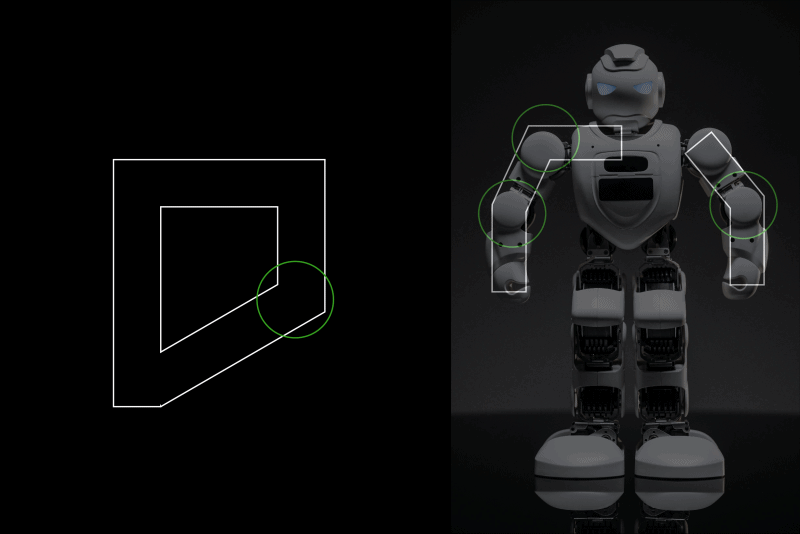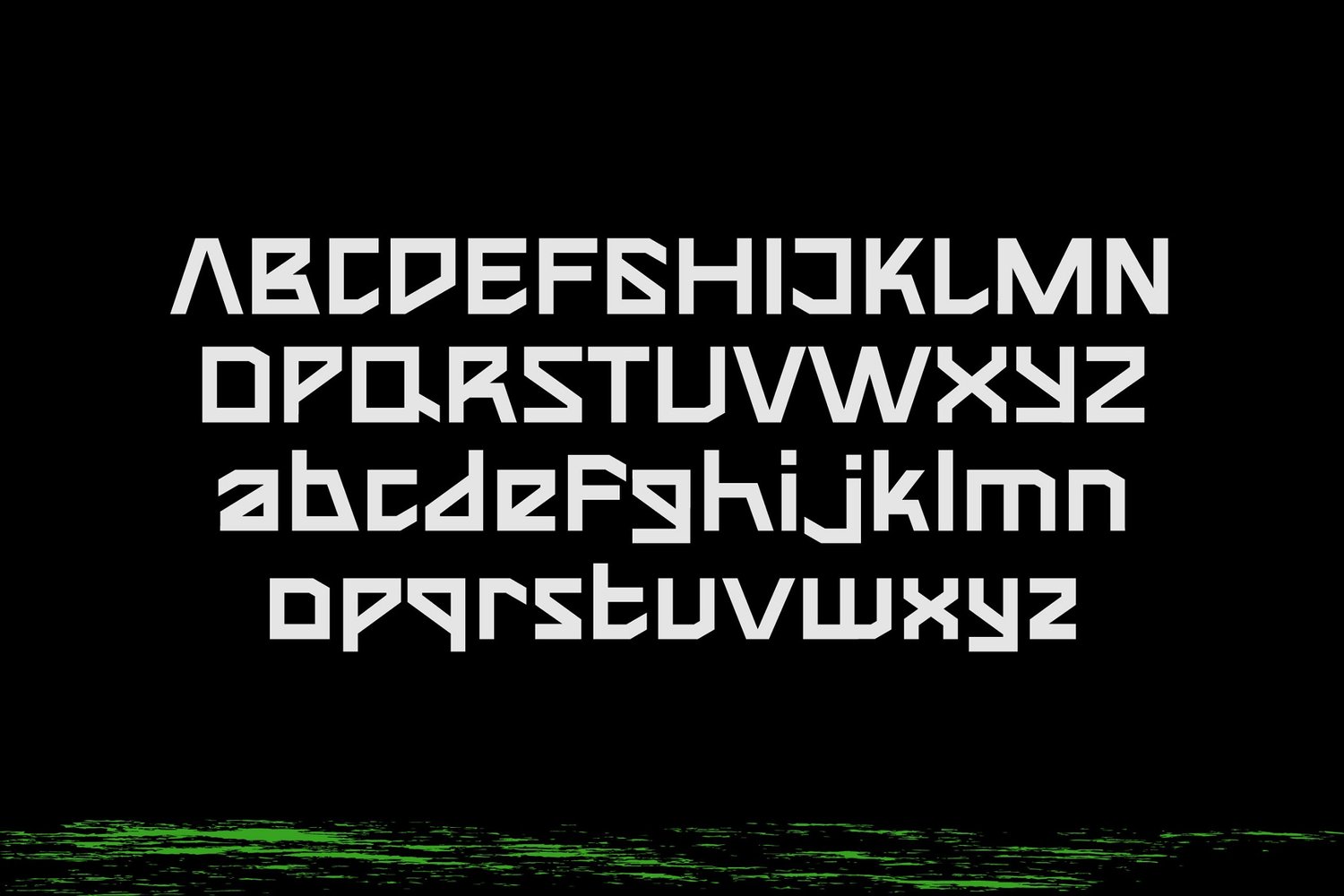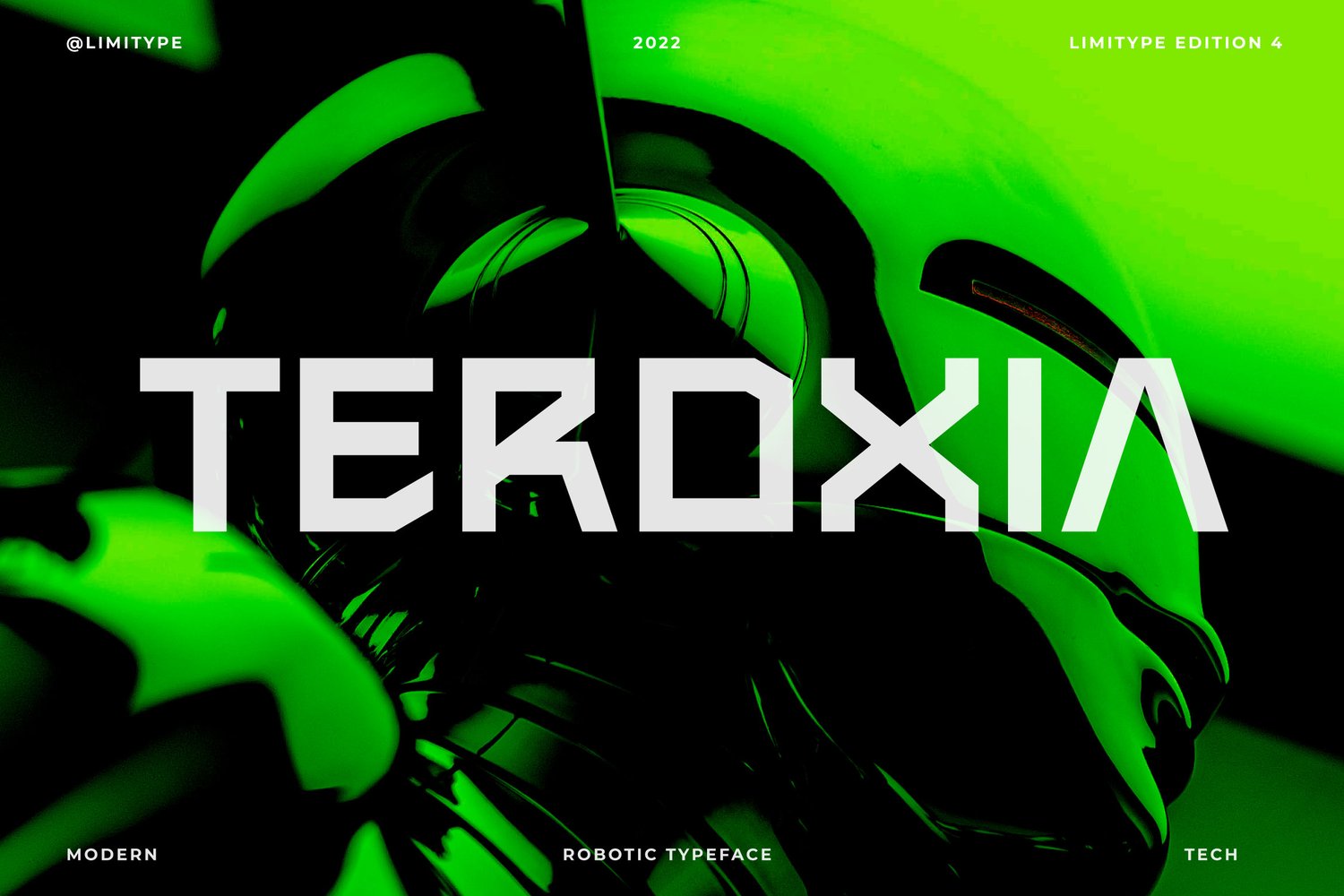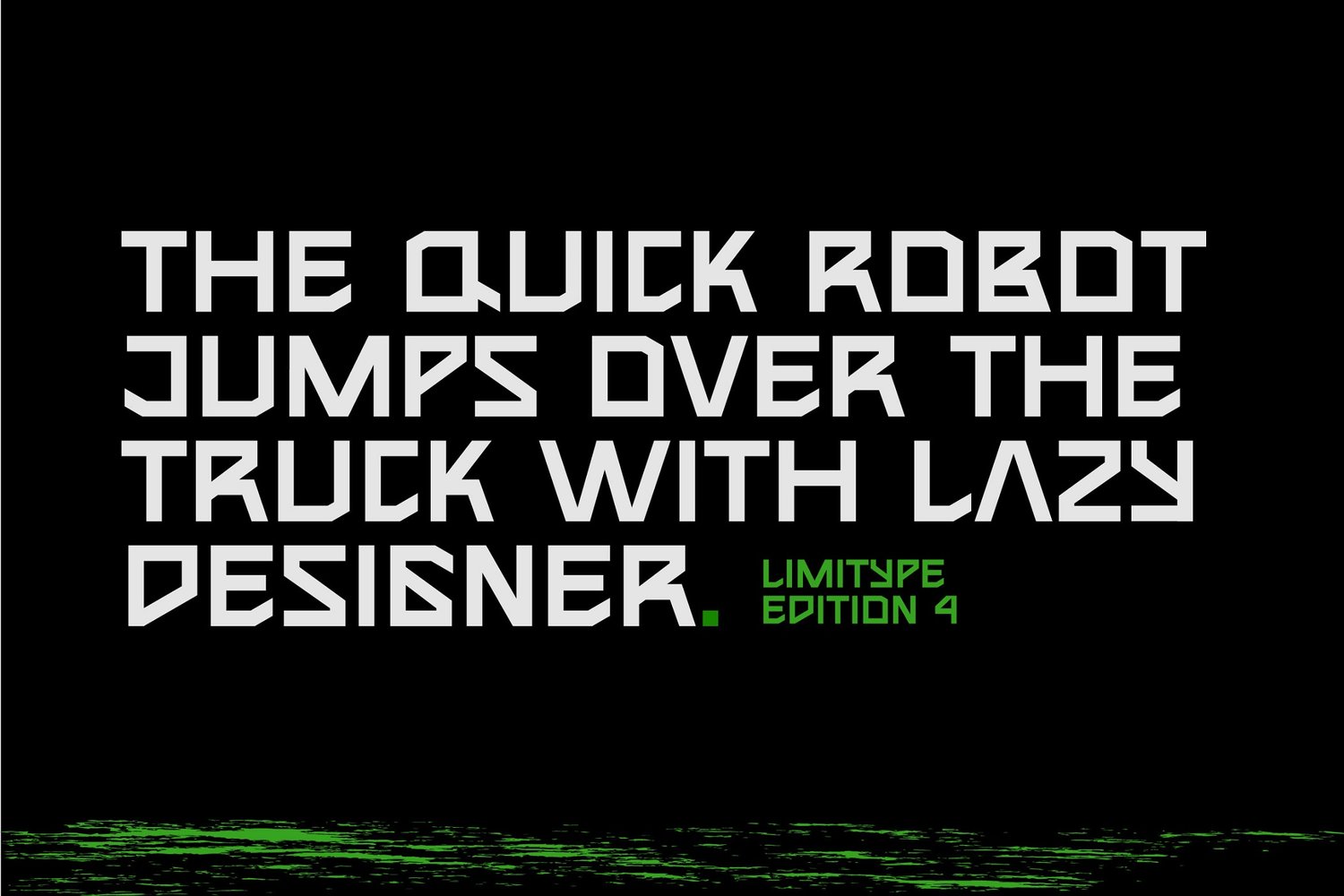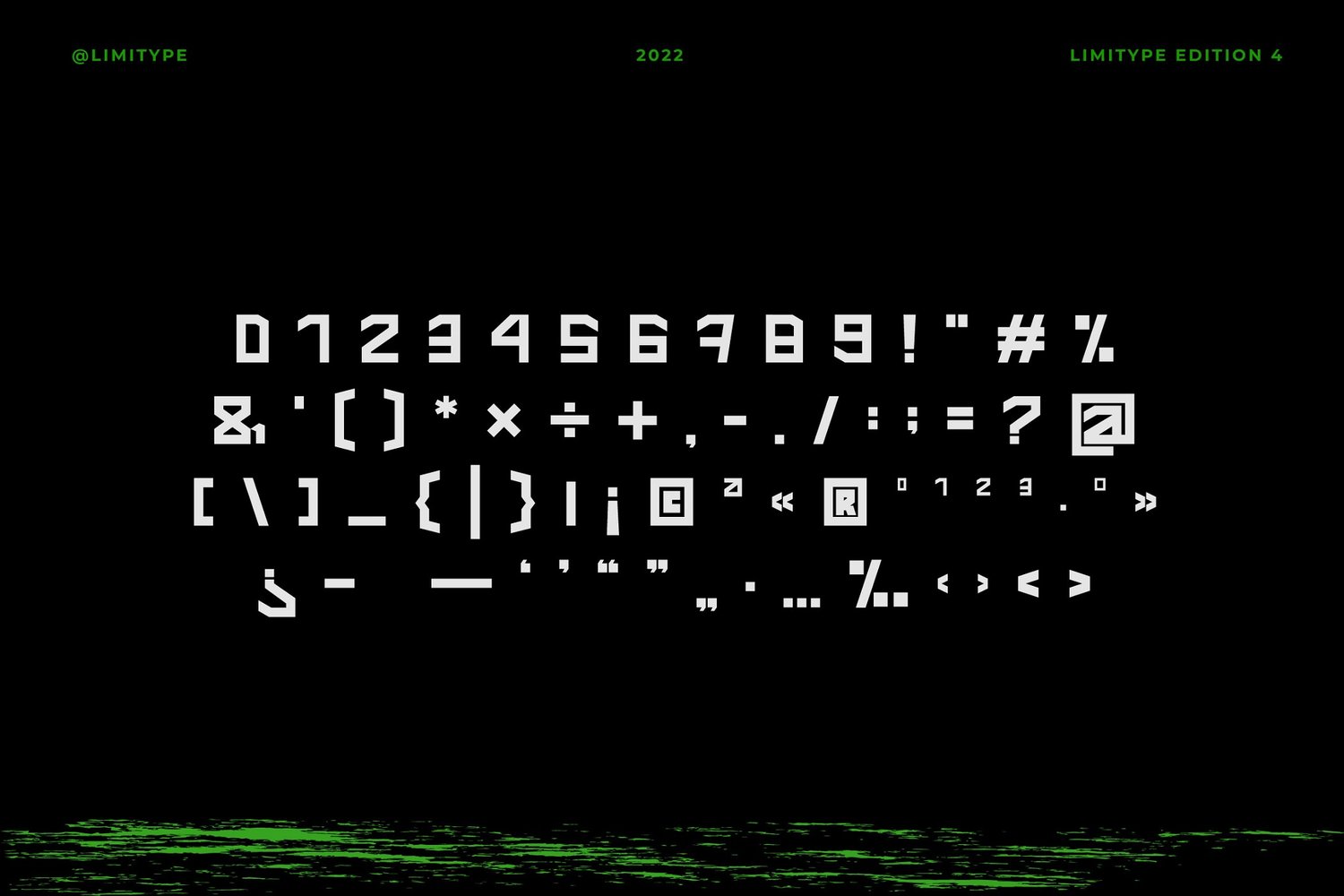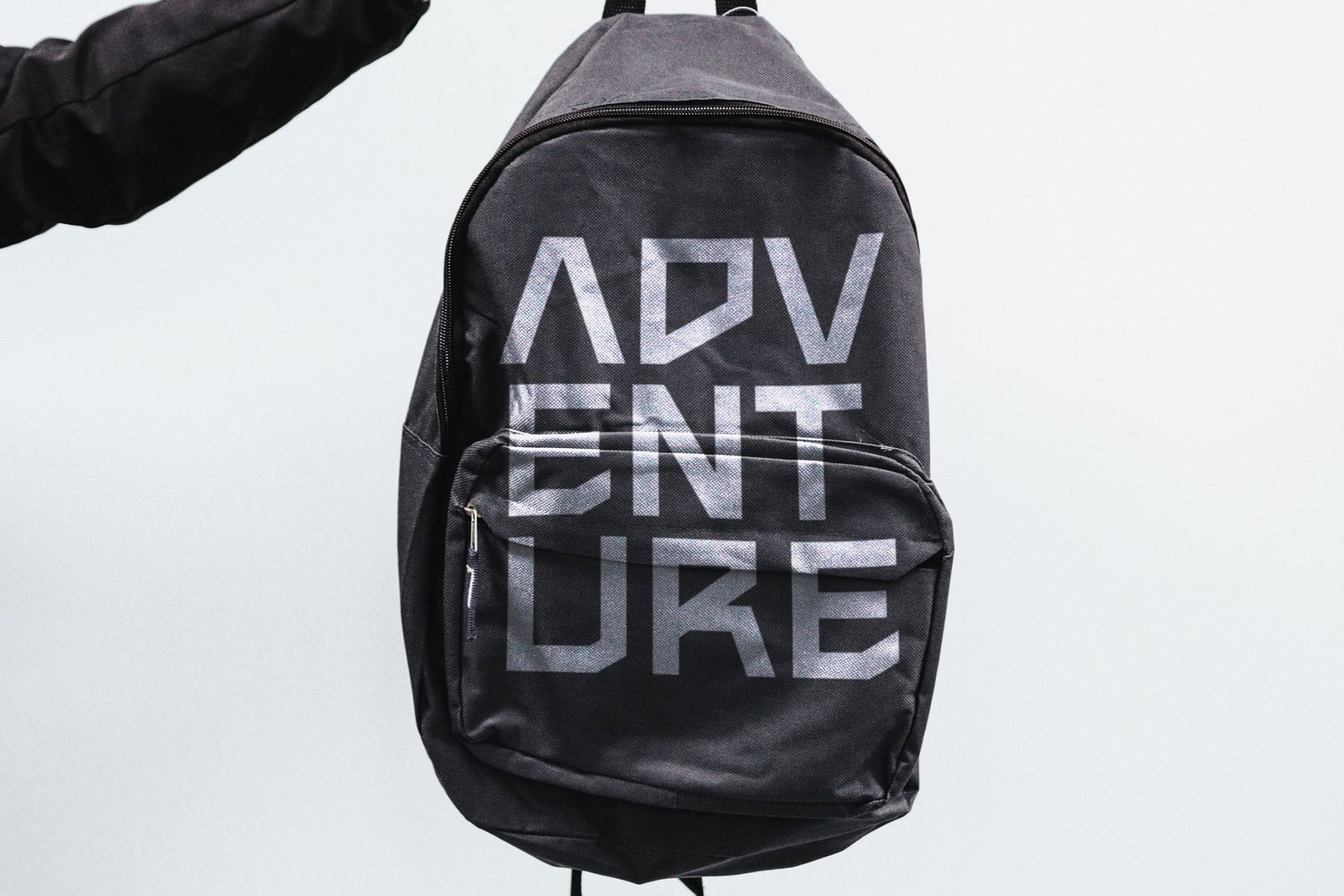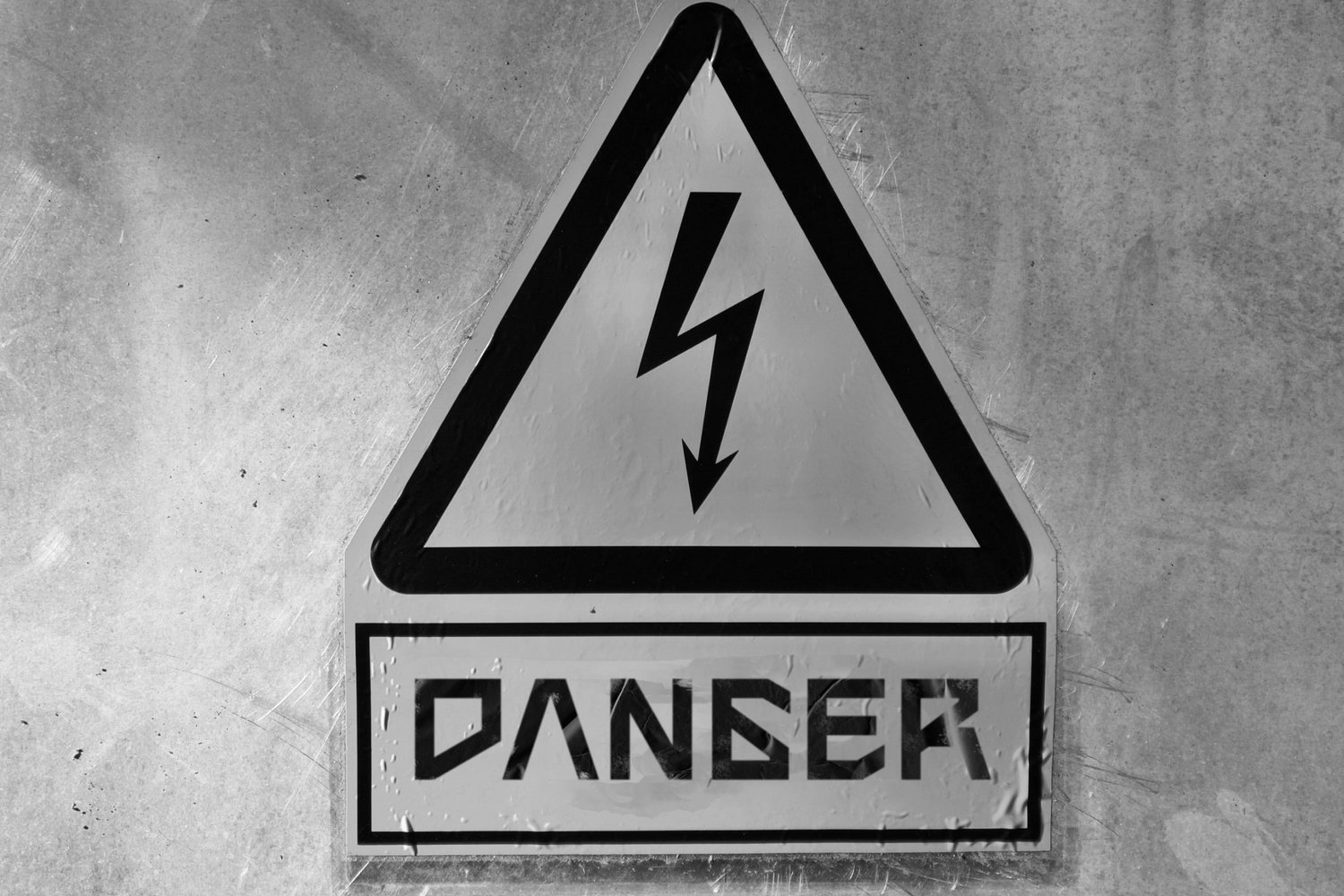
Teroxia - Robotic Typeface
Teroxia is a typeface that is inspired by the shape and characteristics of the curves and constructions that exist in robots or machines, this typeface is made with a modern touch
and a more futuristic and strong form. This typeface is equipped with uppercase, lowercase, numbers, alternate, symbols and multilingual.